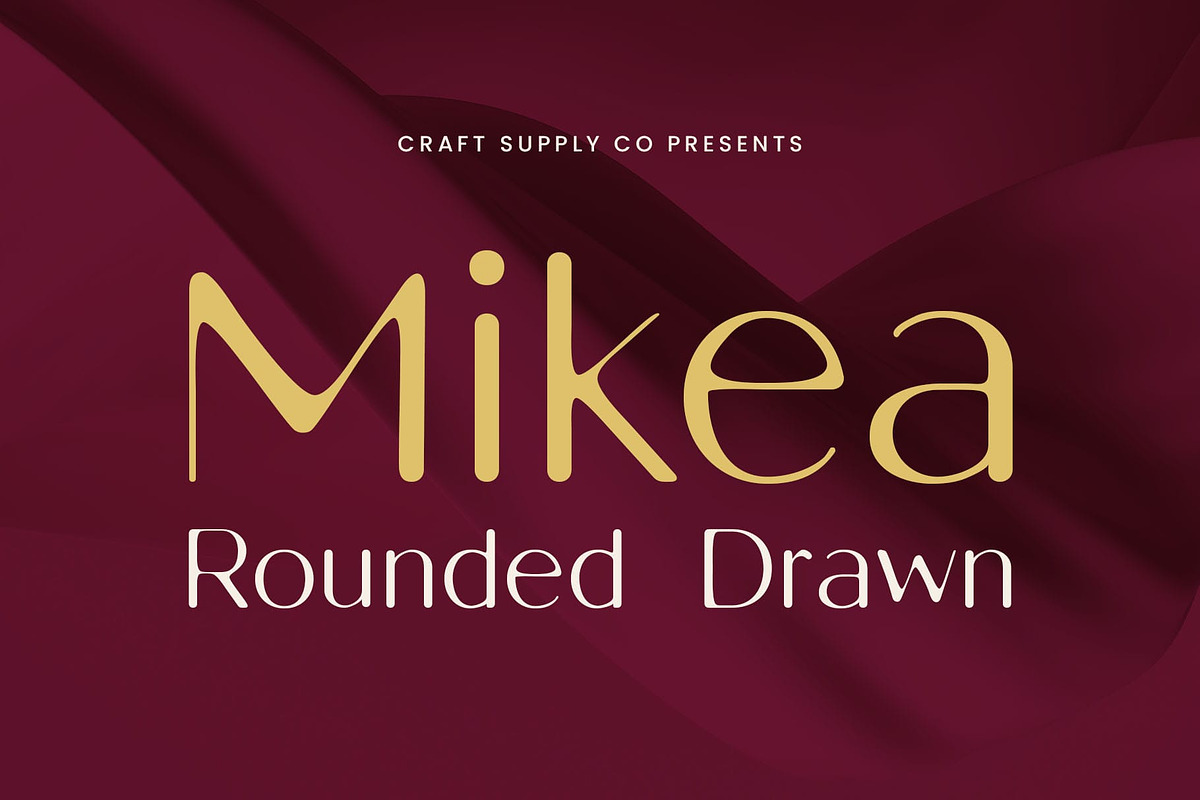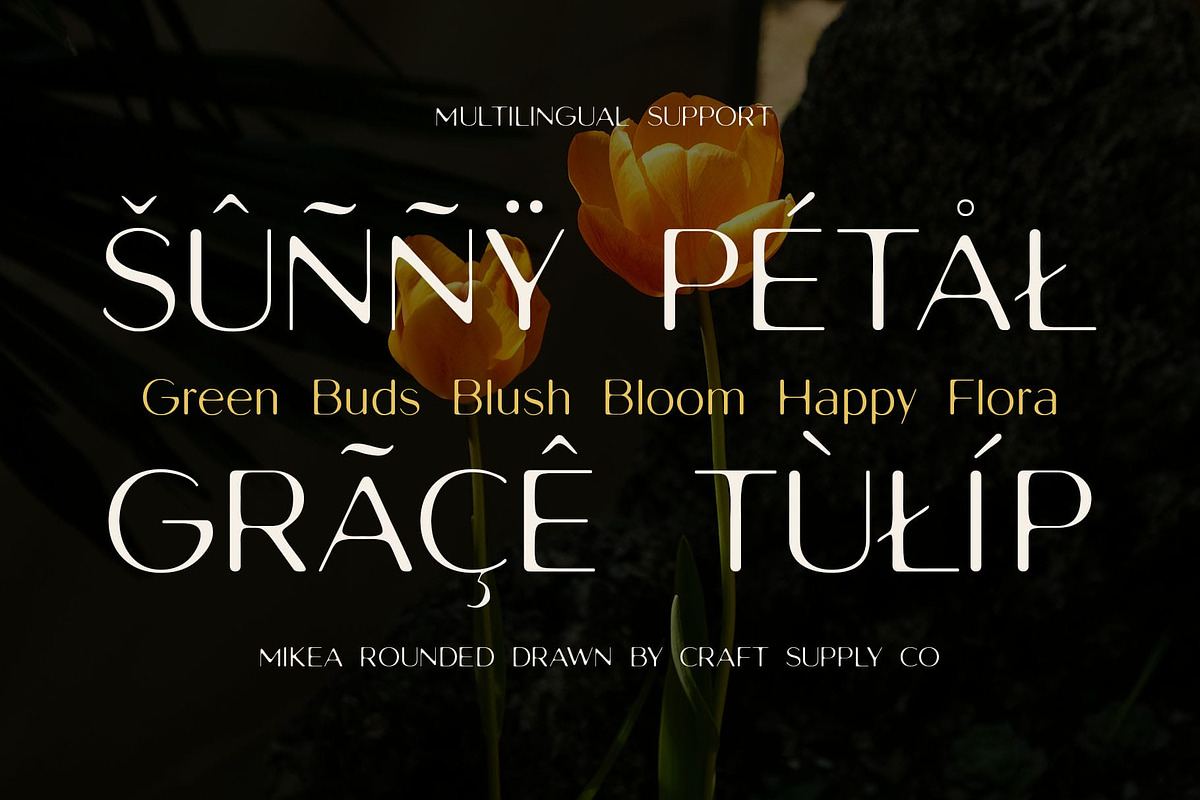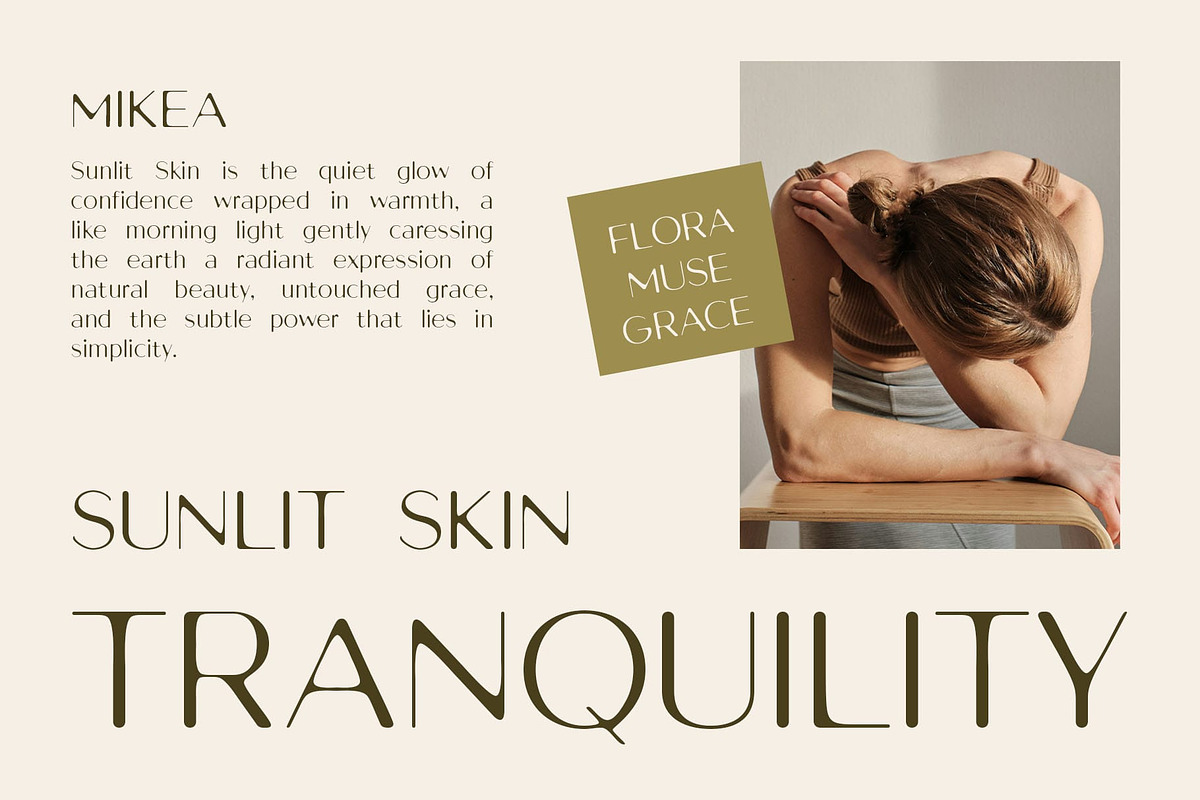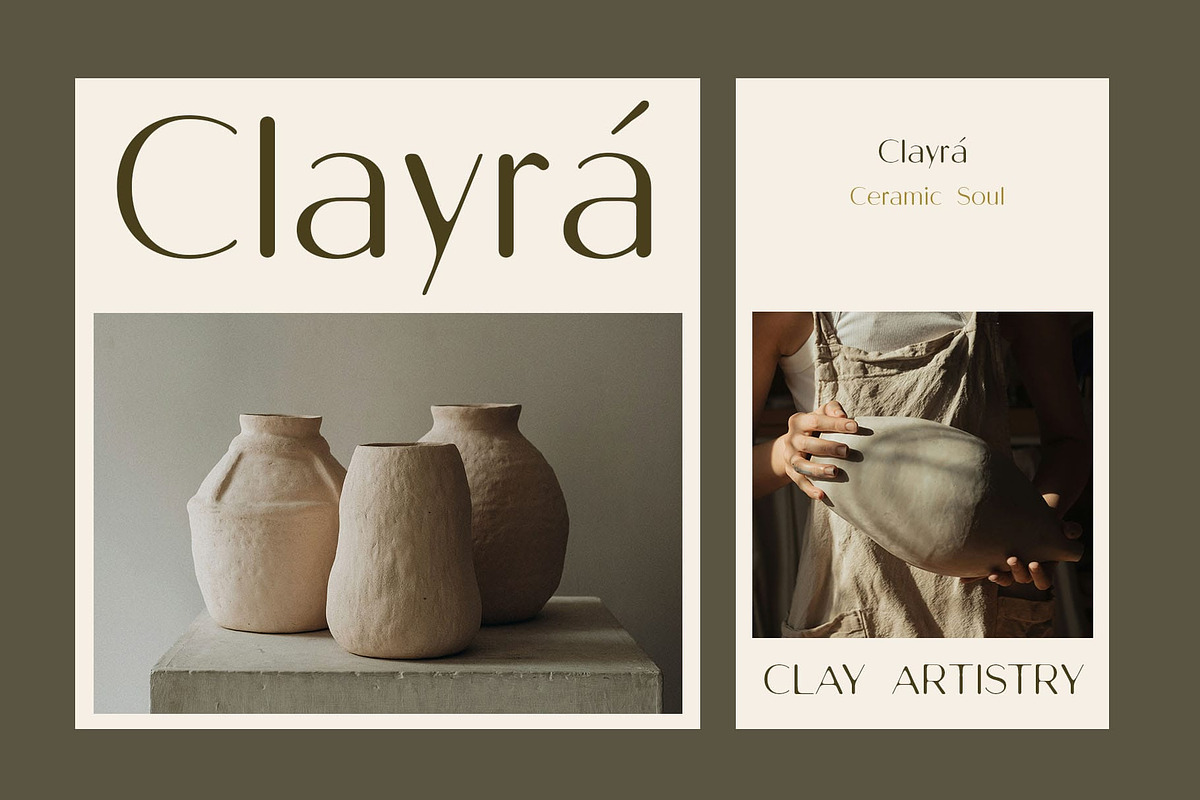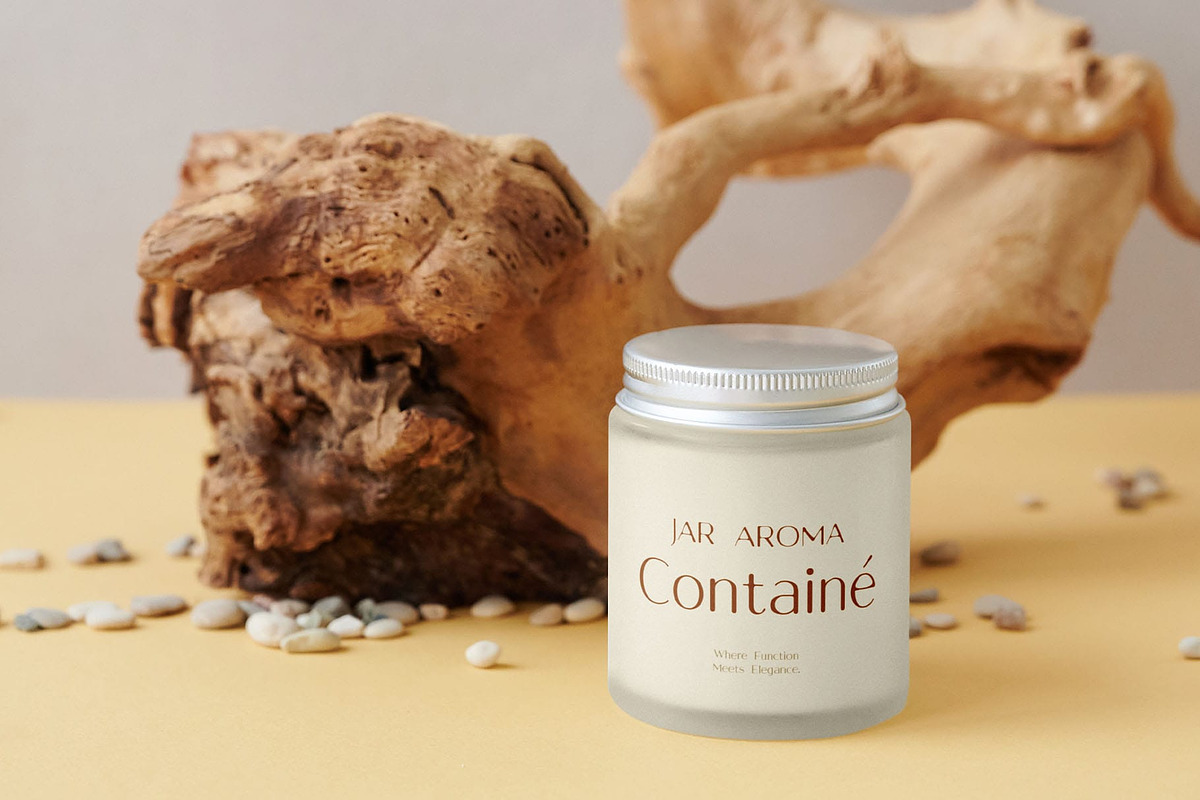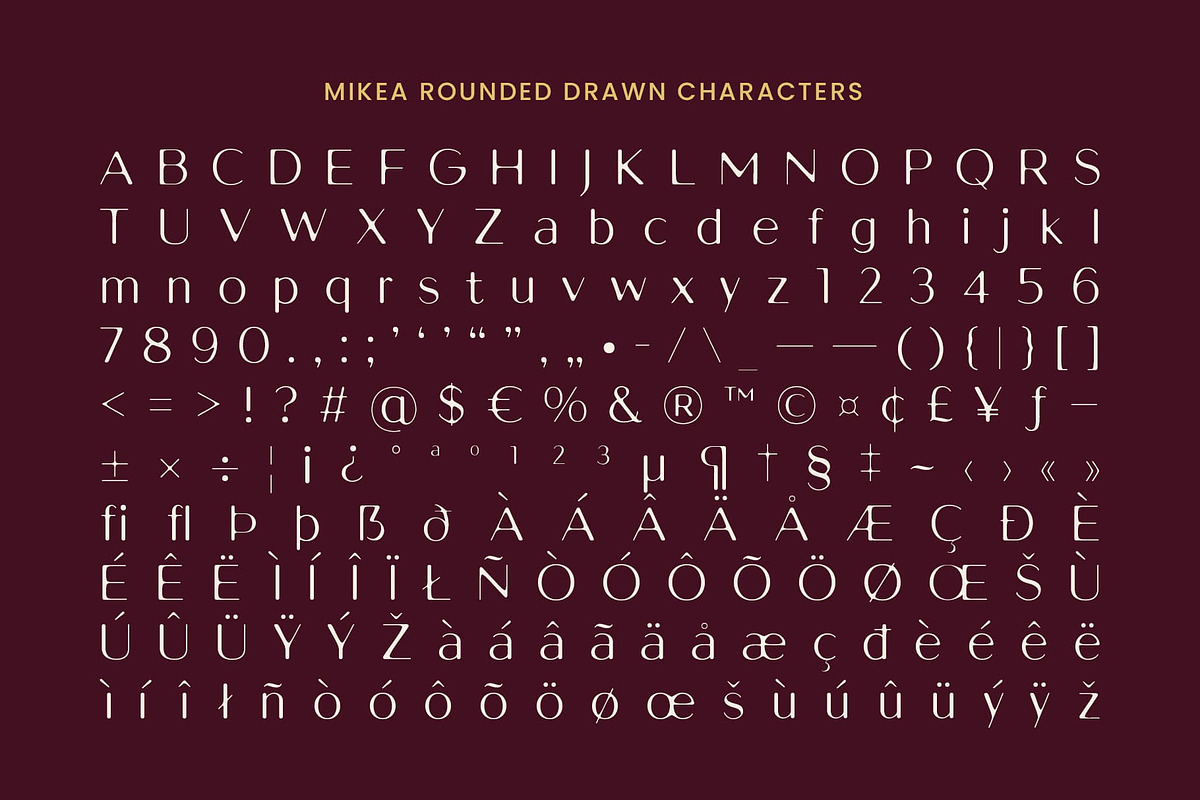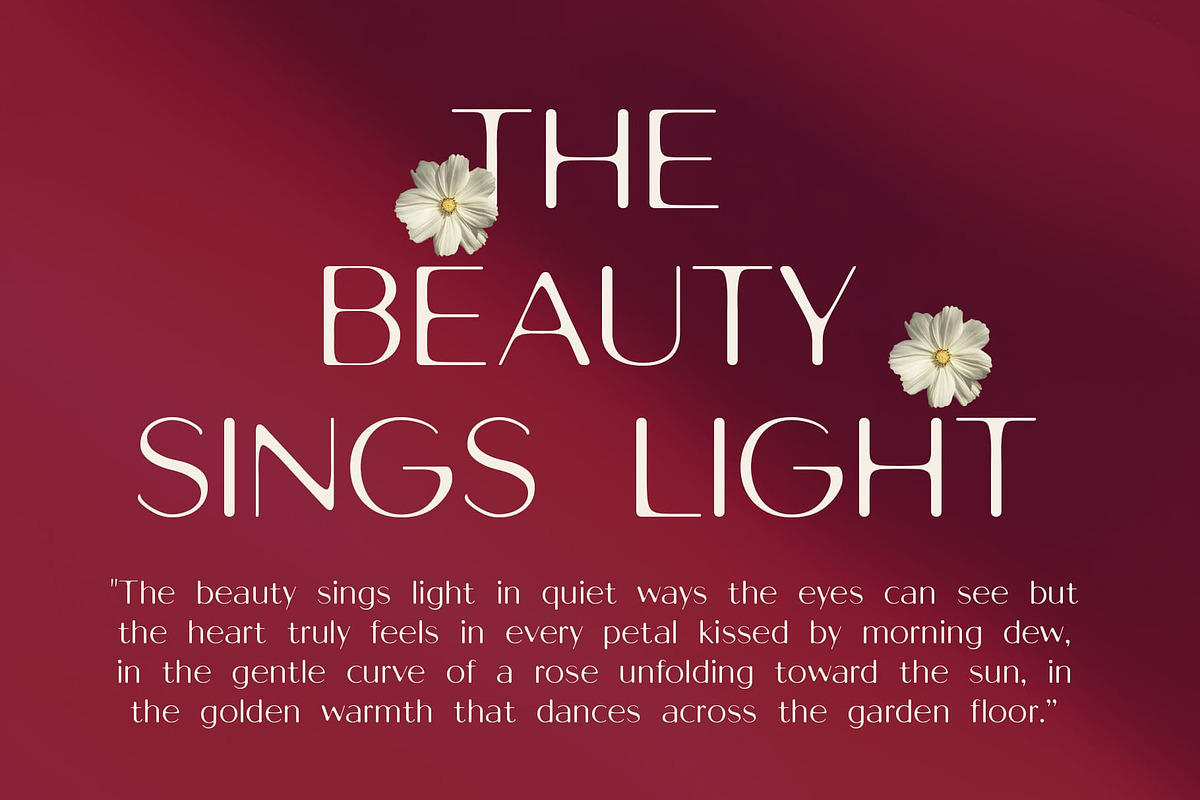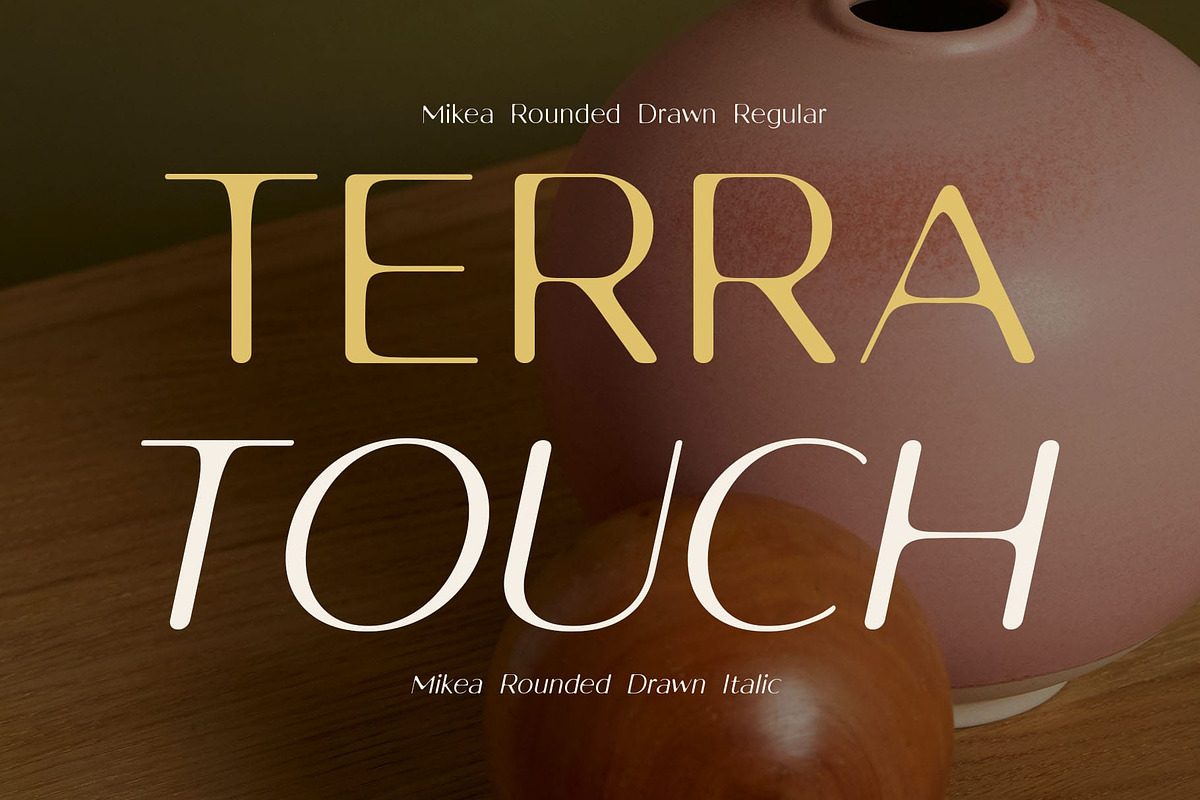
Mikea Rounded Drawn
Mikea Rounded Drawn – A Modern Blend of Elegance and Creativity
Sleek, Contemporary Design Mikea Rounded Drawn is a modern sans serif font that features a clean, minimalist design. Its bold yet smooth lines create a visually striking yet simple appearance, perfect for designs that prioritize both readability and style. The contemporary form exudes sophistication, making it a versatile choice for a wide range of design projects.
Rounded Edges for Approachability The rounded edges of this modern sans serif font give the font a soft, approachable feel, adding a friendly and welcoming vibe. This modern touch makes it perfect for designs that require a balance of professionalism and warmth, creating a clean yet engaging atmosphere.
Creative Hand-Drawn Effect for Added Personality When enhanced with a hand-drawn effect, the font takes on a more organic, artistic quality. The imperfect strokes bring a sense of creativity and individuality to the design, imbuing the type with a unique visual texture that sets it apart from more rigid fonts.
Ideal for Branding, Editorial, and Web Design This versatile combination of modern simplicity and hand-drawn charm makes this modern font perfect for a variety of design applications. Whether used in branding, editorial projects, or web design, it provides a unique blend of elegance, modernity, and personal flair, ensuring a captivating and professional visual identity.